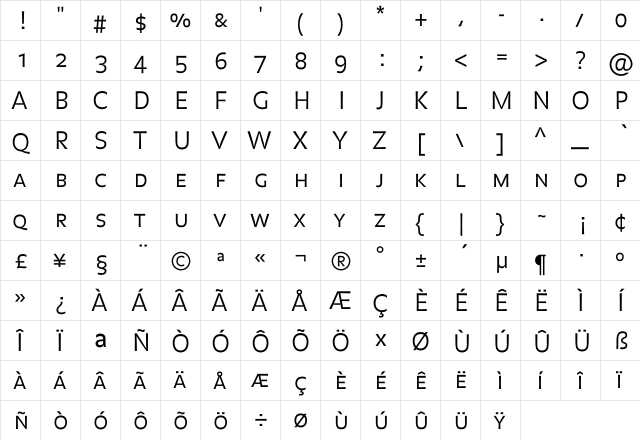
Balance LightCaps
| Style | LightCaps |
Design Context for Balance Typeface
Balance offers clean, dependable letterforms without strong stylistic allegiance, making it a practical choice for designers who need flexibility. Its slender proportions lend an understated elegance to any composition.
Pro Tip: Pair Balance with a font of contrasting weight or personality to build a more expressive typographic hierarchy.